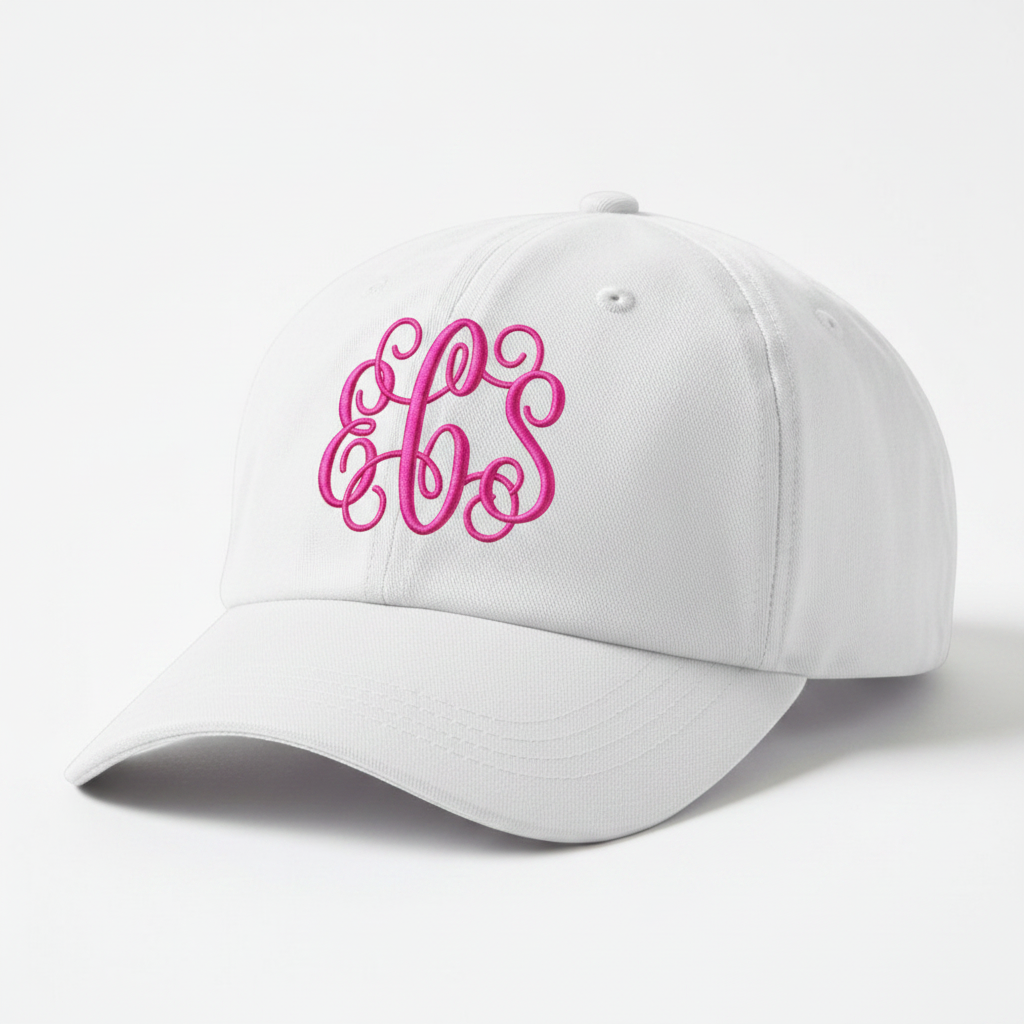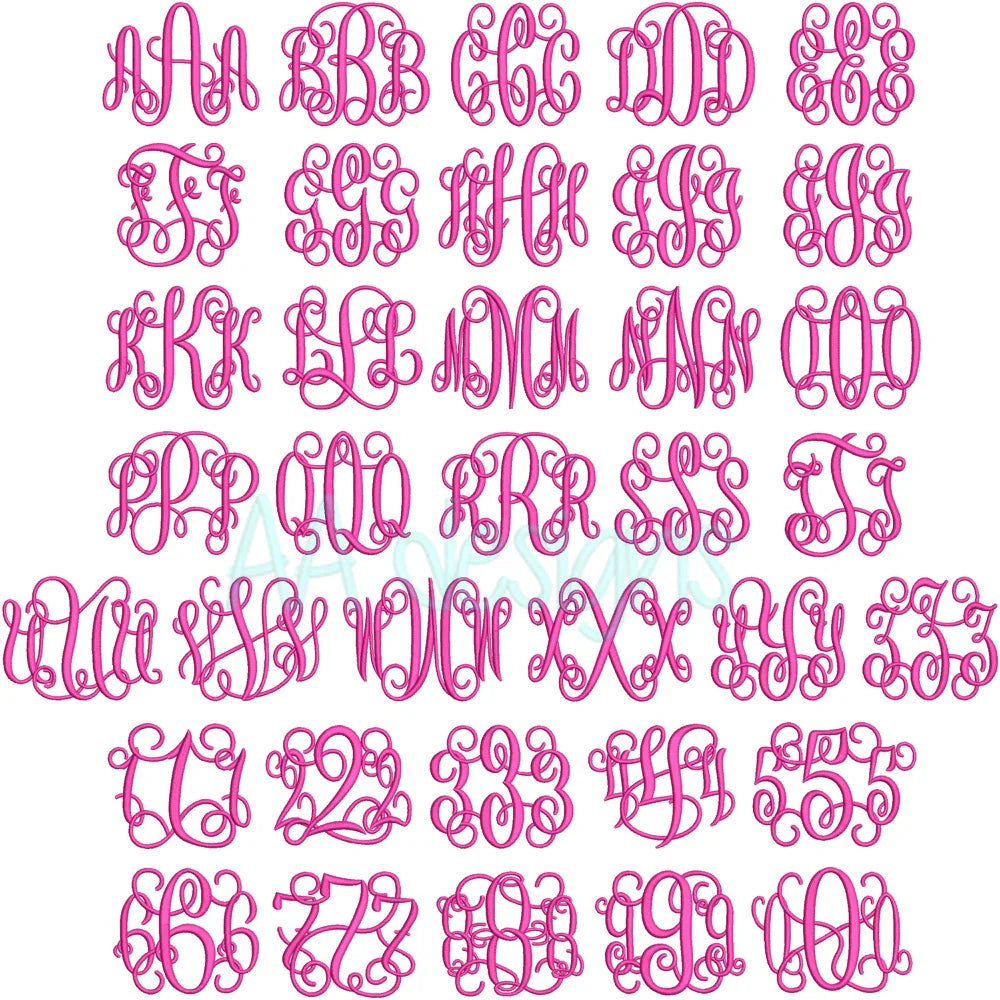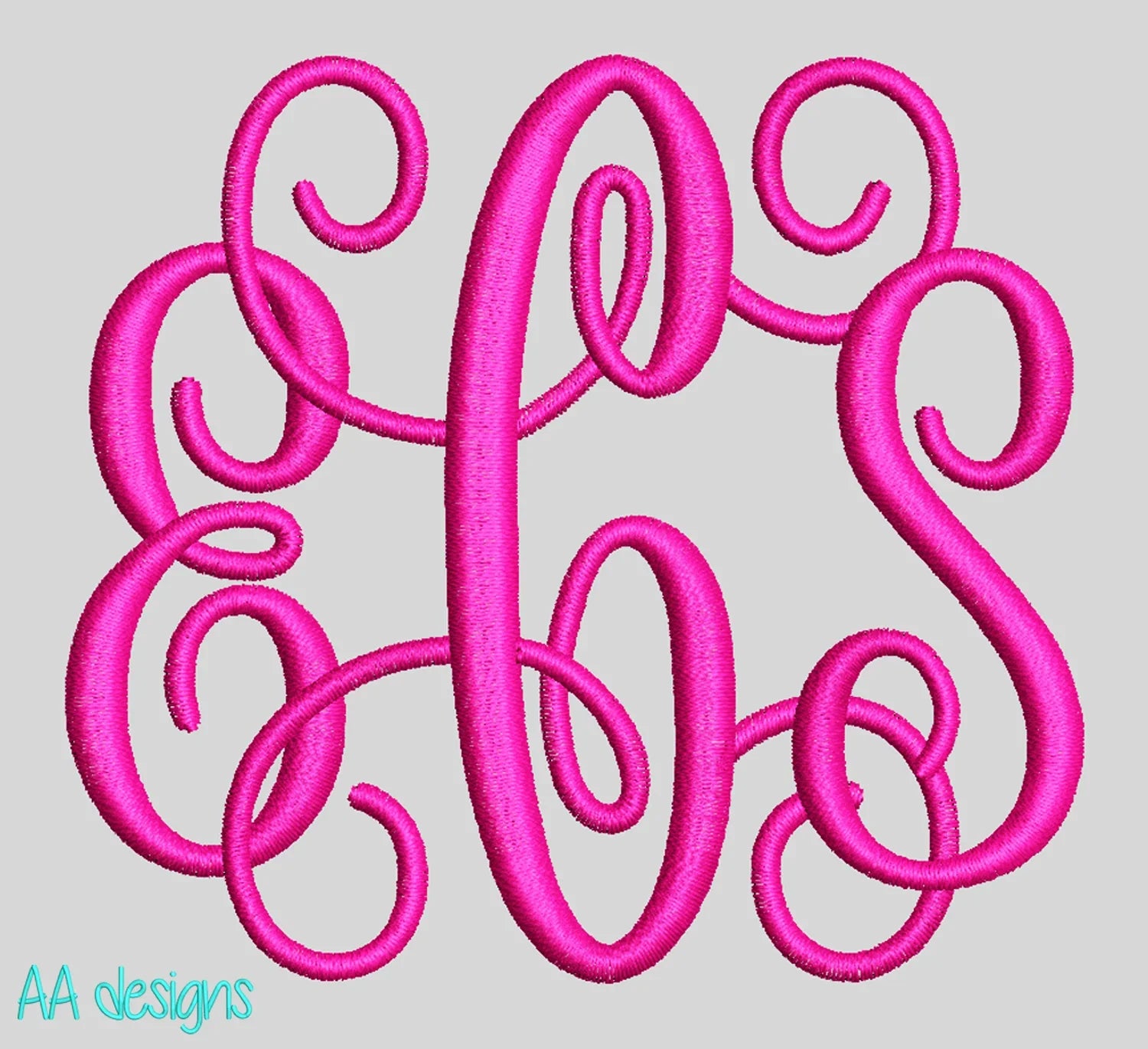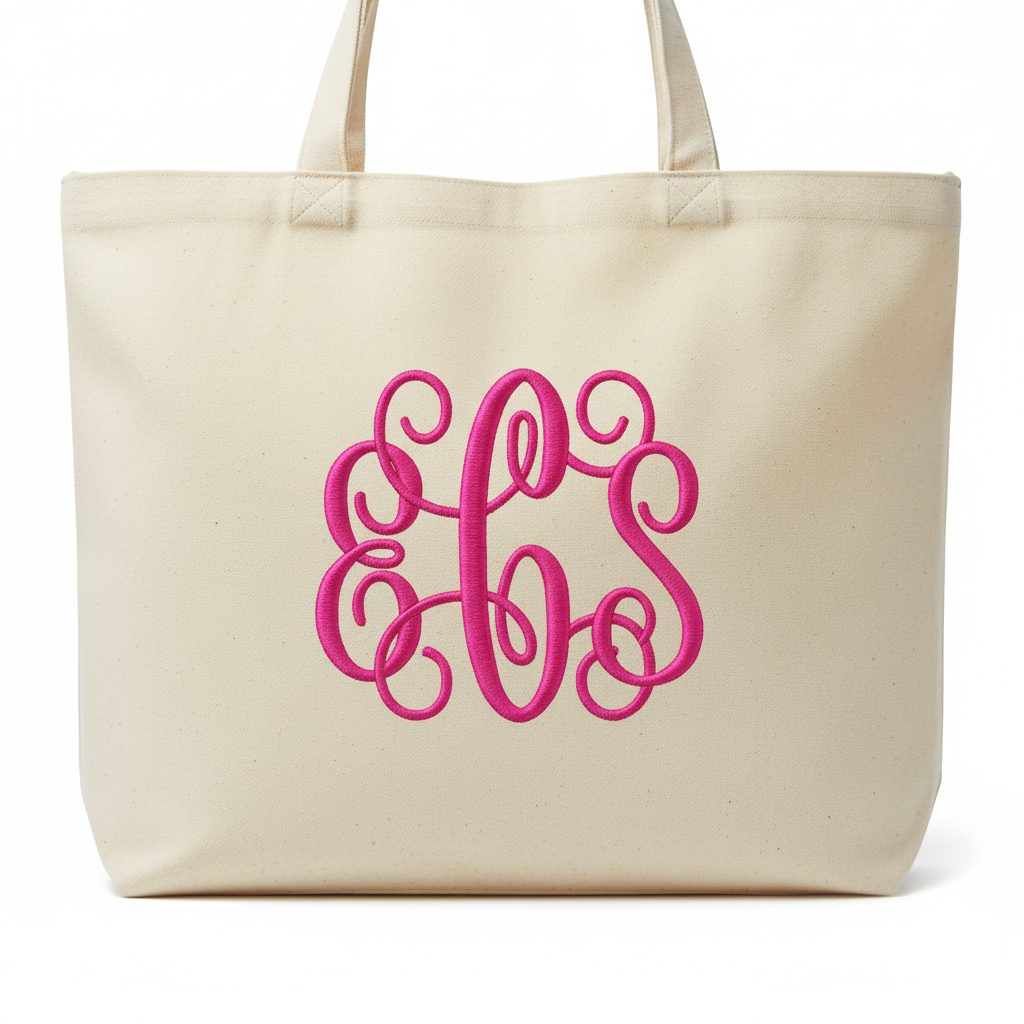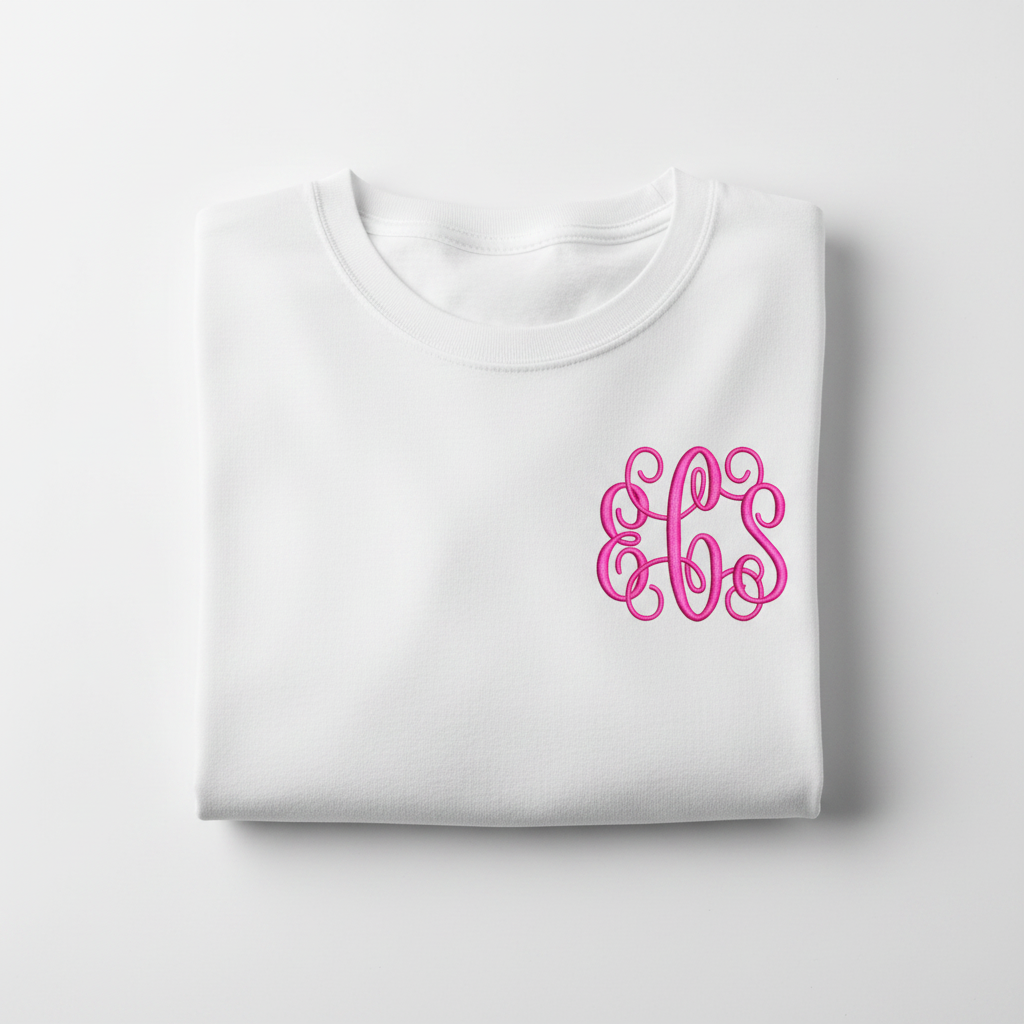
Vine Monogram Machine Embroidery Font — Instant Digital Download
Add elegant, classic vine-style monograms to your embroidery projects. Perfect for personalized gifts, wedding items, towels, tote bags, and apparel.
- ✅ 3 sizes with center, left, and right letter positions
- ✅ Full character set: A–Z, numbers 0–9